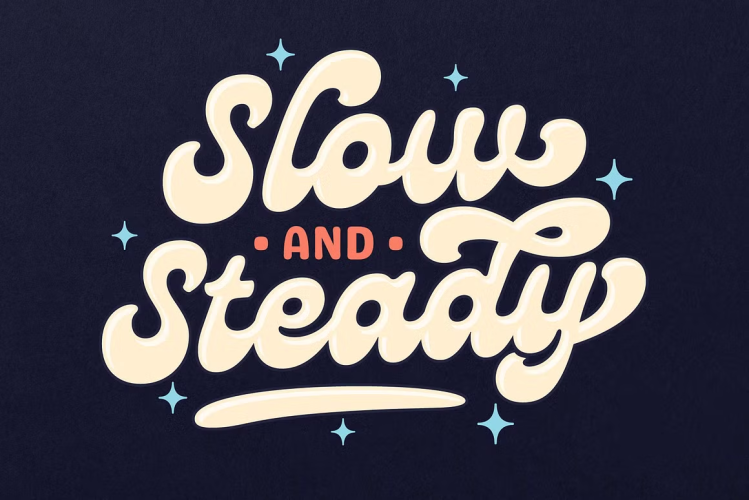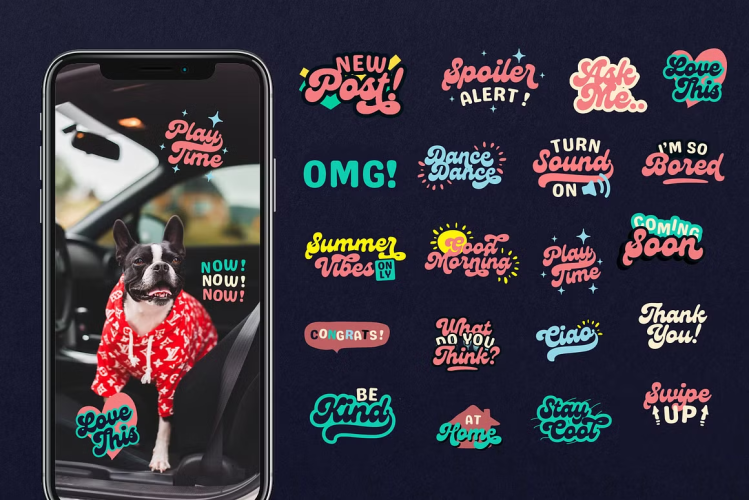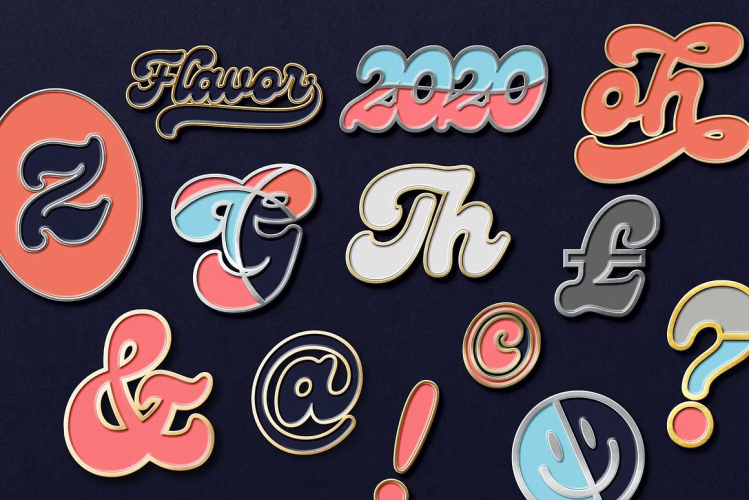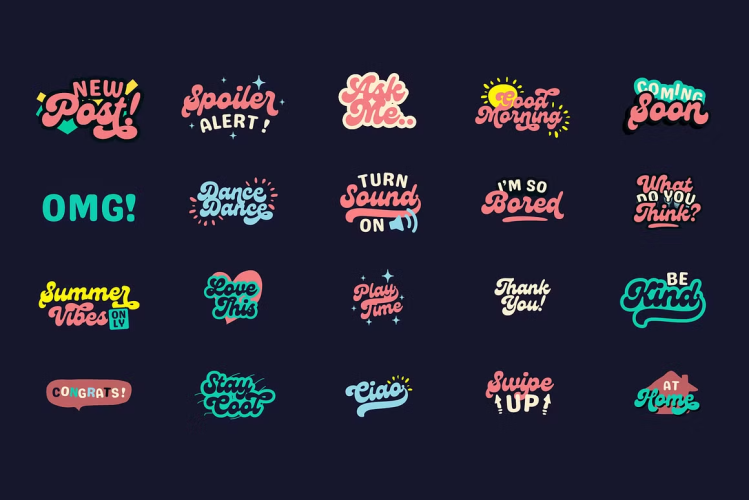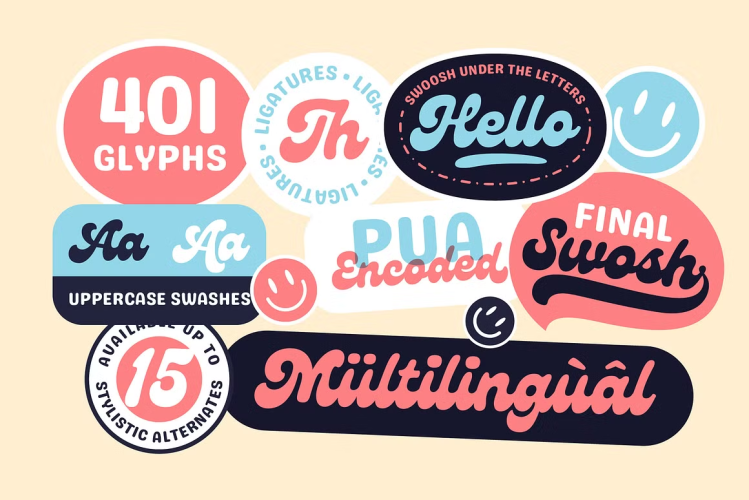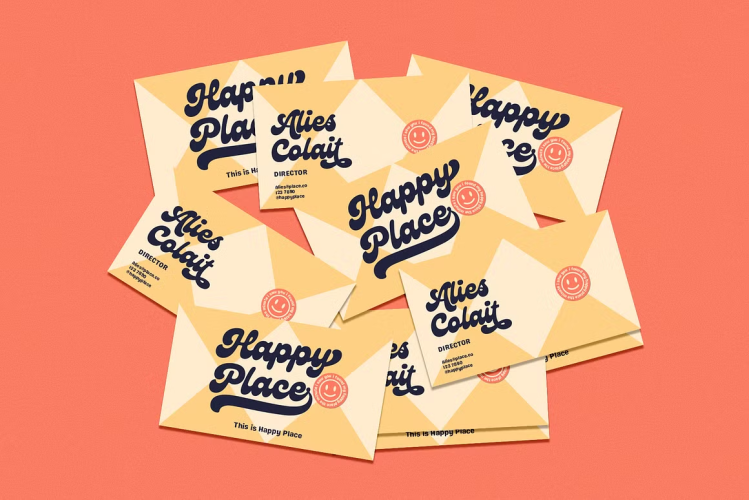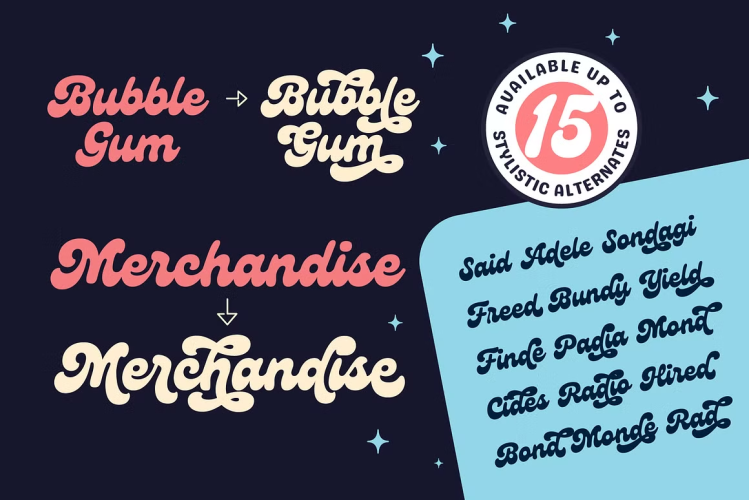
Genty Font
Meets Genty, A new carefully crafted Delightful Bold on a script typeface. A Creation of combining on our last 2 fonts is Budge and Glaw. It generates a lot more fun, more trendy and more vibrant. You get the Versatile, Fun, Cute and Beauty feel in Genty Typefaces.
Genty Created with a tons of opentype features. Beautiful swashes, contextual alternates, stylistic sets up to 15 alternates, ligatures, ascender & descender swashes, Uppercase swashes, swoosh under the letters and swoosh at the end of the letters.
Every glyphs for alternates are curated for the best and possible without eliminate characteristic of this fonts. Genty also comes with a Font Pair Sans Serif that completes the needs of your design.
Our creation on the display will give you a reference for what it looks like on your project, such as Branding, Header, Logotype, Poster, Magazine, Packaging, Food Menus, etc. It shows that Genty clearly can accommodate various design styles.
Where Genty Font works best
A short phrase in Genty Font carries warmth that a typeset sans cannot fake; keep the rest of the card plain.
Chalkboard-style headings in Genty Font make a menu feel hand-made. Keep the dish descriptions in a simple face so prices stay readable.
One line of Genty Font over a photo is enough; the script carries the tone and the caption does the work.
What kind of work does Genty Font suit?
It sits in the Script And Handwritten group and reads as bold, branding, food, playful. That makes it a candidate wherever those qualities help: headings, packaging, social graphics and brand work. Set it at the size you plan to use before deciding.